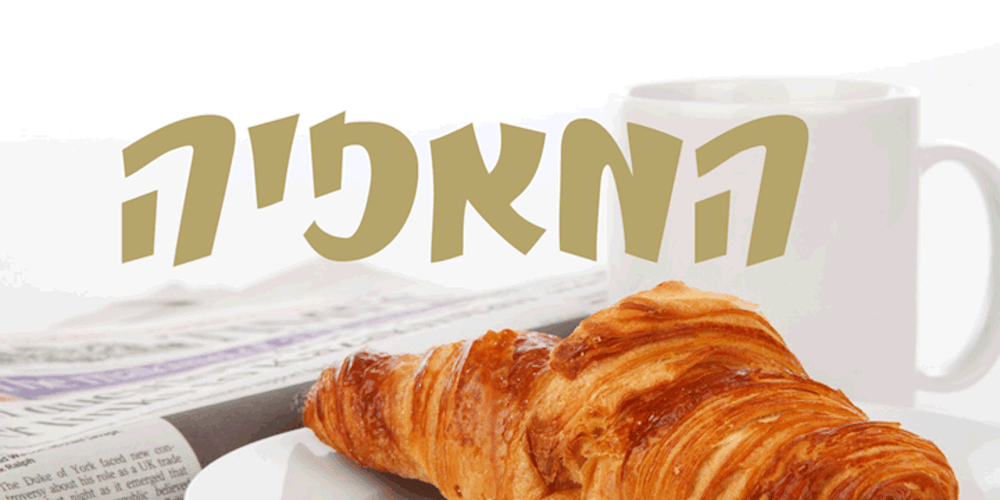
Achshelo MF
Achshelo MF font
Achshelo MF Font Family was designed by Zvika Rosenberg and published by Masterfont. Achshelo MF contains 1 styles and family package options. Rude, rough, wild, energetic – it is all here, waiting for your next headline to emerge.